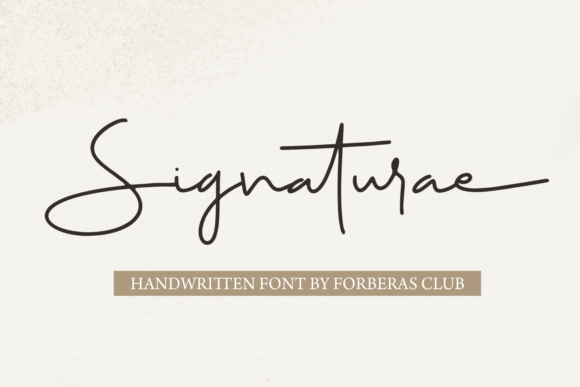
Introduce Yourself to Signaturae: The Script Font That Will Mesmerize You
In a digital world brimming with creative expression, the choice of font can either elevate your designs to new heights or leave them feeling flat and uninspired. Allow us to introduce you to Signaturae, a script font crafted with meticulous care, designed to awaken your imagination and transform your creative visions into breathtaking realities.
Step into a world of elegance and sophistication, where every letter dances across the page with a graceful fluidity. Signaturae's flowing lines and delicate curves create a visual symphony, inviting your eyes to linger and savor every detail. Its timeless style transcends trends, ensuring that your designs remain captivating for years to come.
With Signaturae, you'll have the power to weave enchanting stories through your design projects. Whether you're crafting heartfelt invitations, designing stunning logos, or creating personalized branding elements, this font will infuse your work with an air of sophistication and charm.
Embrace the allure of Signaturae and unlock the gateway to a world of creativity without limits. Let your imagination take flight as you explore the endless possibilities that await you with this exceptional script font.
- Exquisitely crafted script font with a timeless style
- Designed to add a touch of elegance and sophistication to your projects
- Perfect for creating heartfelt invitations, stunning logos, and personalized branding elements
- Offers a wide range of customization options to suit your unique design vision
Indulge in the beauty of Signaturae today and embark on a creative journey like no other!